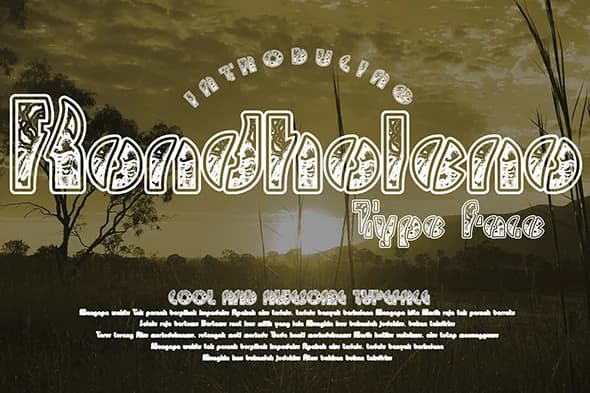
Rondholeno by Gblack Id is a handwritten script typeface with an organic, flowing character that works beautifully for artistic lettering projects. The casual, natural letterforms give your designs a personal touch without feeling overly decorative, making it particularly suited for wedding invitation suites, greeting card typography, and boutique business card design. This font excels when you need to convey warmth and authenticity in your layouts, transforming ordinary text into something that feels genuinely handcrafted. The consistent letterforms maintain readability across different applications while preserving that organic charm and personality that immediately draws viewers in.
Beyond formal occasions, Rondholeno performs exceptionally well in expressive design contexts like event poster design, Instagram story graphics, and product label typography where a human-drawn aesthetic adds significant visual interest and character. Whether you're developing a cohesive brand identity for a small business or creating individual design pieces, this typeface provides the flexibility needed to work across multiple mediums and formats. The flowing, connected nature of the letterforms creates a natural sense of movement that guides the viewer's eye through your composition with ease. This script font works equally well at large display sizes and smaller text sizes, adapting to different creative needs.
- Elegant, Flowing, Rondholeno
Rondholeno Font is a script font that shines as a display or heading face. Pair it with a clean sans-serif or serif font for body text β the contrast creates a clear hierarchy while the two styles stay balanced and easy to read.
Rondholeno Font